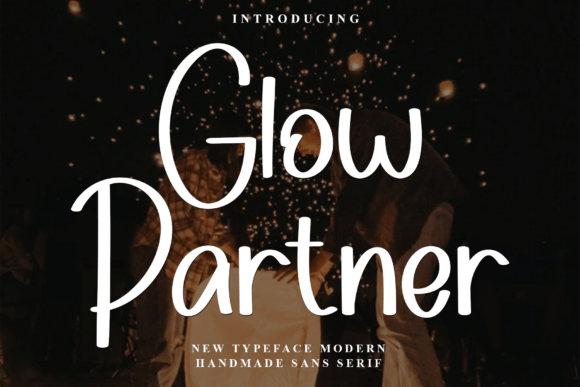
Introducing Glow Partner Font: The Ultimate Holiday Typeface
The holiday season is upon us, and what better way to get into the spirit than with a festive and merry typeface? Look no further than Glow Partner Font, a decorative and whimsical font that captures the essence of the holiday season. With its enchanting elements and nostalgic flair, this font is perfect for adding a touch of magic to your designs.
The Perfect Font for Holiday Projects
Glow Partner Font is specifically designed for holiday-themed projects, making it the perfect choice for greeting cards, gift tags, and festive marketing materials. Its unique and playful design elements evoke a sense of nostalgia and cheer, making it ideal for creating holiday-themed content that resonates with your audience.
Key Features of Glow Partner Font
- Decorative Elements: Glow Partner Font features intricate and decorative elements that add a touch of whimsy to your designs.
- Whimsical Flair: The font’s playful and cursive design gives it a merry and festive feel that’s perfect for the holiday season.
Why Choose Glow Partner Font?
With so many fonts to choose from, why should you choose Glow Partner Font for your holiday projects? Here are just a few reasons:
Stand Out from the Crowd
With its unique and festive design, Glow Partner Font is sure to make your holiday projects stand out from the crowd. Whether you’re creating greeting cards, gift tags, or social media posts, this font will add a touch of magic to your designs.
Create a Nostalgic Ambiance
Glow Partner Font’s whimsical and playful design elements evoke a sense of nostalgia and cheer, making it perfect for creating holiday-themed content that resonates with your audience. Use this font to create designs that feel like a warm hug on a cold winter’s day.
- What is Glow Partner Font?
- Glow Partner Font is a festive and merry typeface designed specifically for holiday-themed projects.